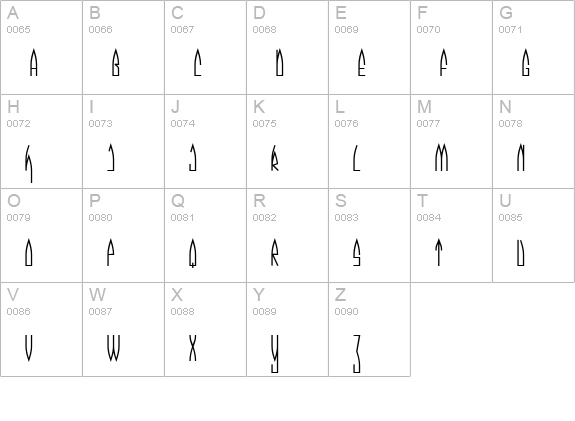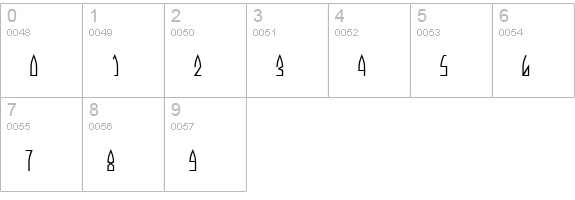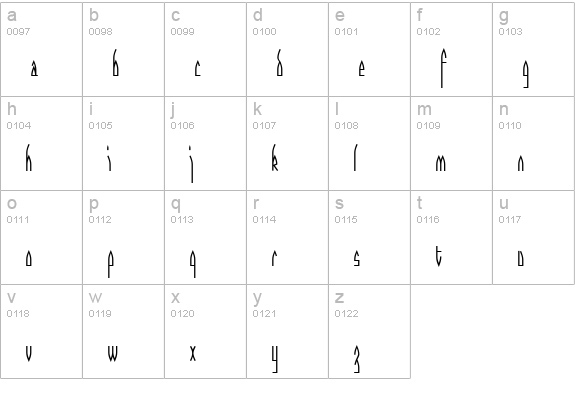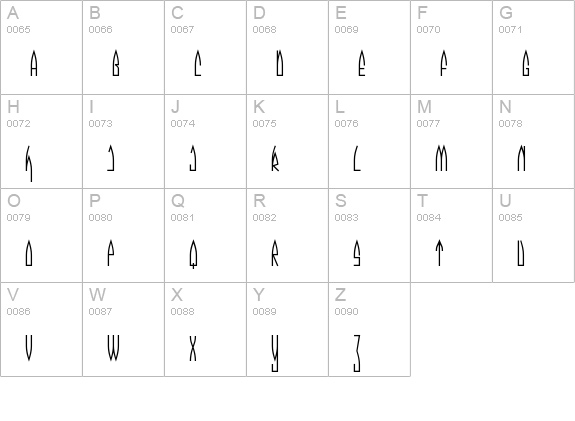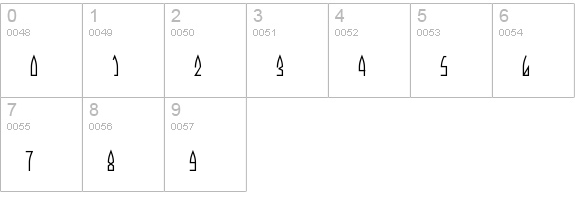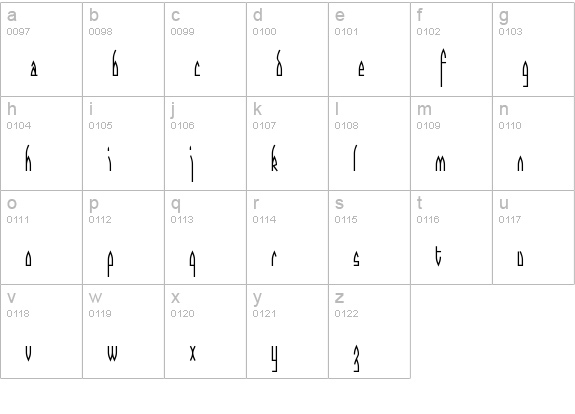
GothicHorror font is a hauntingly beautiful typeface that embodies the eerie and mysterious essence of classic Gothic horror tales. With its intricate details and sharp edges, this font exudes an air of foreboding darkness, perfect for adding a touch of macabre to your designs. The GothicHorror font is ideal for creating spine-chilling posters, invitations, and book covers that will send shivers down your audience's spine. Best of all, GothicHorror font is available for free download at FontsMarket.com. Embrace the darkness and unleash the power of this captivating font in your next project. Whether you're a fan of horror literature or simply appreciate the artistry of Gothic design, GothicHorror font is sure to captivate your imagination and leave a lasting impression. Download now and explore the endless possibilities of this striking typeface.